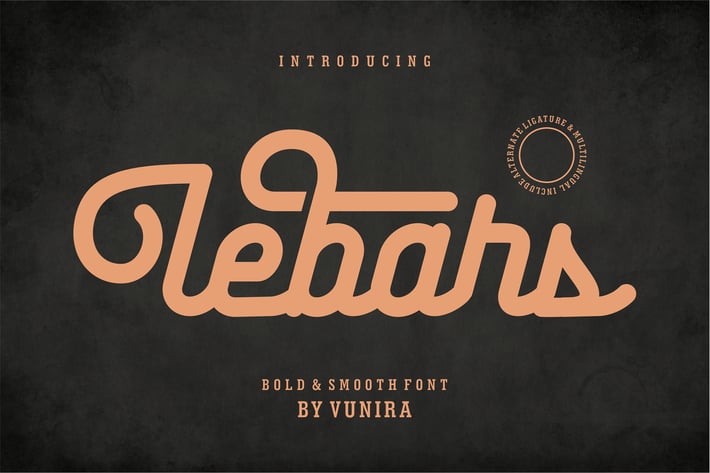
Lebars | Bold & Smooth Font
Lebars | Bold & Smooth Font with a calligraphy style, So beautiful on invitation like greeting cards, branding materials, business cards, quotes, posters, and more!